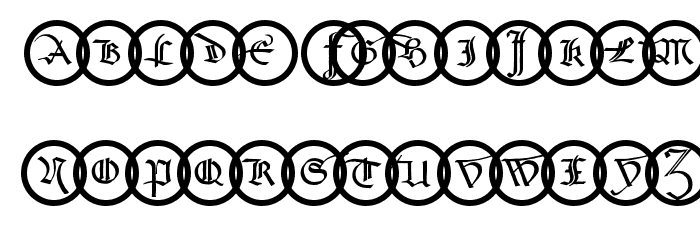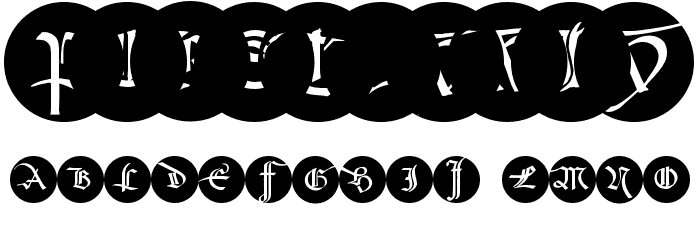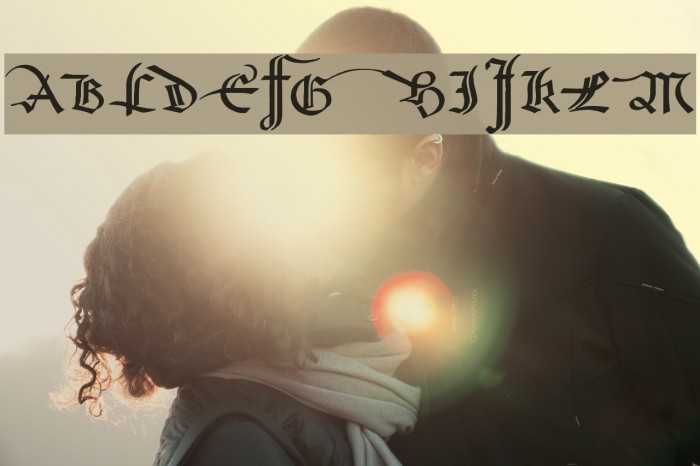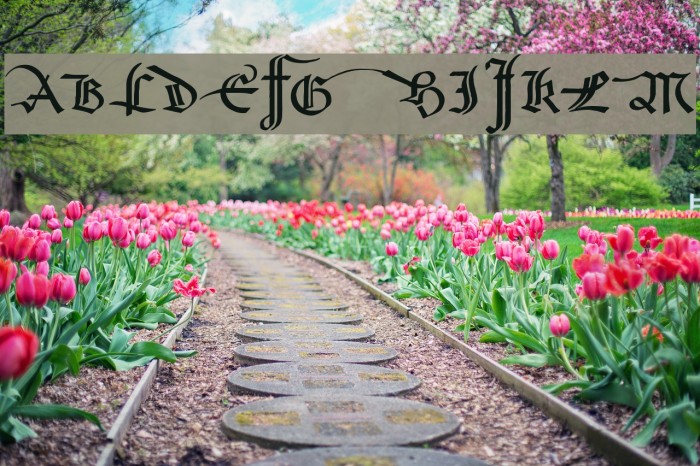
SchneidlerSchwabachInitials Font
This font is a decorative and intricate typeface that embodies the essence of traditional Blackletter styles. It features elaborate and ornate letterforms with sharp, angular lines and dramatic flourishes. The uppercase letters are particularly striking, with extended serifs and intricate detailing that give a sense of historical elegance. The lowercase letters maintain the same level of detail, creating a cohesive and visually captivating appearance. This font is perfect for projects that require a touch of classic sophistication and a nod to medieval script styles.
A decorative Blackletter font with intricate, ornate letterforms.
- Proposed Projects: Ideal for historical documents, invitations, certificates, and branding that requires a classic and sophisticated touch.
- Category: Blackletter
- Overall Style: Vintage
- Use Case: Logos, Headlines, Decorative text